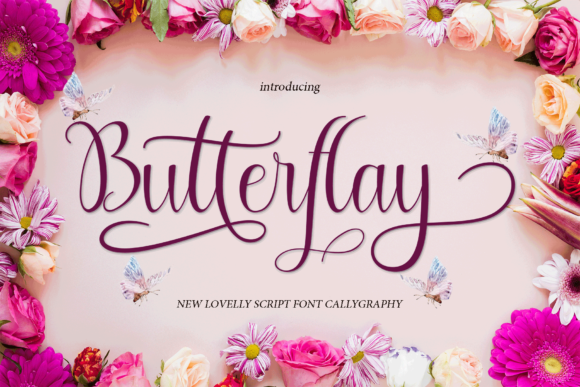
Unlock the Magic of Handwritten Typography
As a designer, there’s nothing quite like the thrill of bringing a creative idea to life. It’s that moment when everything falls into place, and your vision starts to take shape. You’re experimenting with colors, shapes, and typography, trying to find the perfect combination to convey your message. And then, it happens – you stumble upon the perfect font that makes your design sing.
Enter the Butterflay Font, a delicate, elegant, and flowing handwritten font that’s sure to elevate your designs to new heights. With its beautiful and well-balanced characters, this font is the perfect match for a wide range of creative projects. Whether you’re working on a wedding invitation, a branding project, or a digital art piece, the Butterflay Font is sure to add a touch of sophistication and whimsy to your work.
What makes the Butterflay Font truly valuable for designers is its PUA encoding, which allows for easy access to all of its glyphs and swashes. This means you can experiment with different styles and variations without any hassle, unlocking a world of creative possibilities.
Key Features of Butterflay Font
- Font Family: A unique and elegant script font, ideal for creative and artistic designs.
- Unique Characteristics: Features a flowing, handwritten style with subtle flourishes and swashes, perfect for adding a touch of elegance to designs.
Review of Butterflay Font
Overall, I think Butterflay Font is a decent choice for projects that require a whimsical and playful feel. It’s perfect for designs that aim to convey a sense of childlike wonder and magic ✨. The font’s unique letterforms and flourishes can add a touch of personality to your designs.
Here are some of the things that I like about Butterflay Font:
- Uniqueness: Butterflay Font has a distinctive look that sets it apart from more common fonts.
- Expressiveness: The font’s intricate details and flourishes can convey a sense of emotion and expression.
- Playfulness: The font’s lighthearted and carefree feel makes it perfect for projects that require a sense of fun and playfulness.
- Legibility: In certain situations, the font’s unique letterforms can make it difficult to read, especially at smaller font sizes ⚠️.
- Restrictive use cases: The font’s playful feel may not be suitable for all types of projects, such as formal or serious designs.
Overall, I think Butterflay Font is a solid choice for designers who want to add a touch of whimsy to their projects. While it may have some limitations, its unique look and expressive feel make it a great option for the right type of project.
Getting the Most Out of the Butterfly Font
To get the most out of the Butterfly Font, use it sparingly and thoughtfully in your designs. Pair it with simple backgrounds and clean layouts to let the font be the focal point. Avoid using it in small sizes or with complex typography.
The Butterfly Font is ideal for creative and whimsical designs, such as:
- Children’s book covers and illustrations
- Event and party invitations